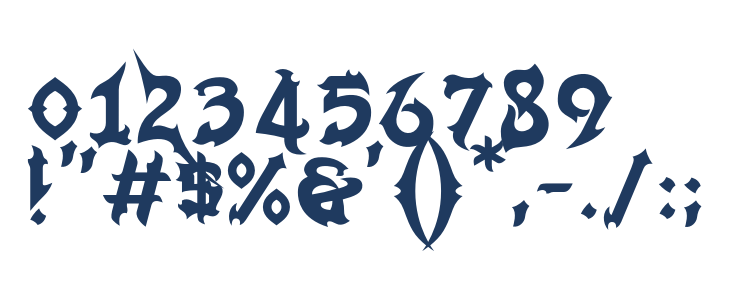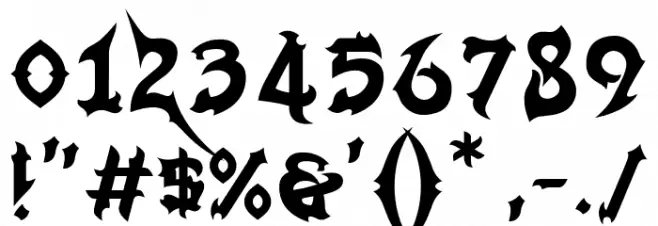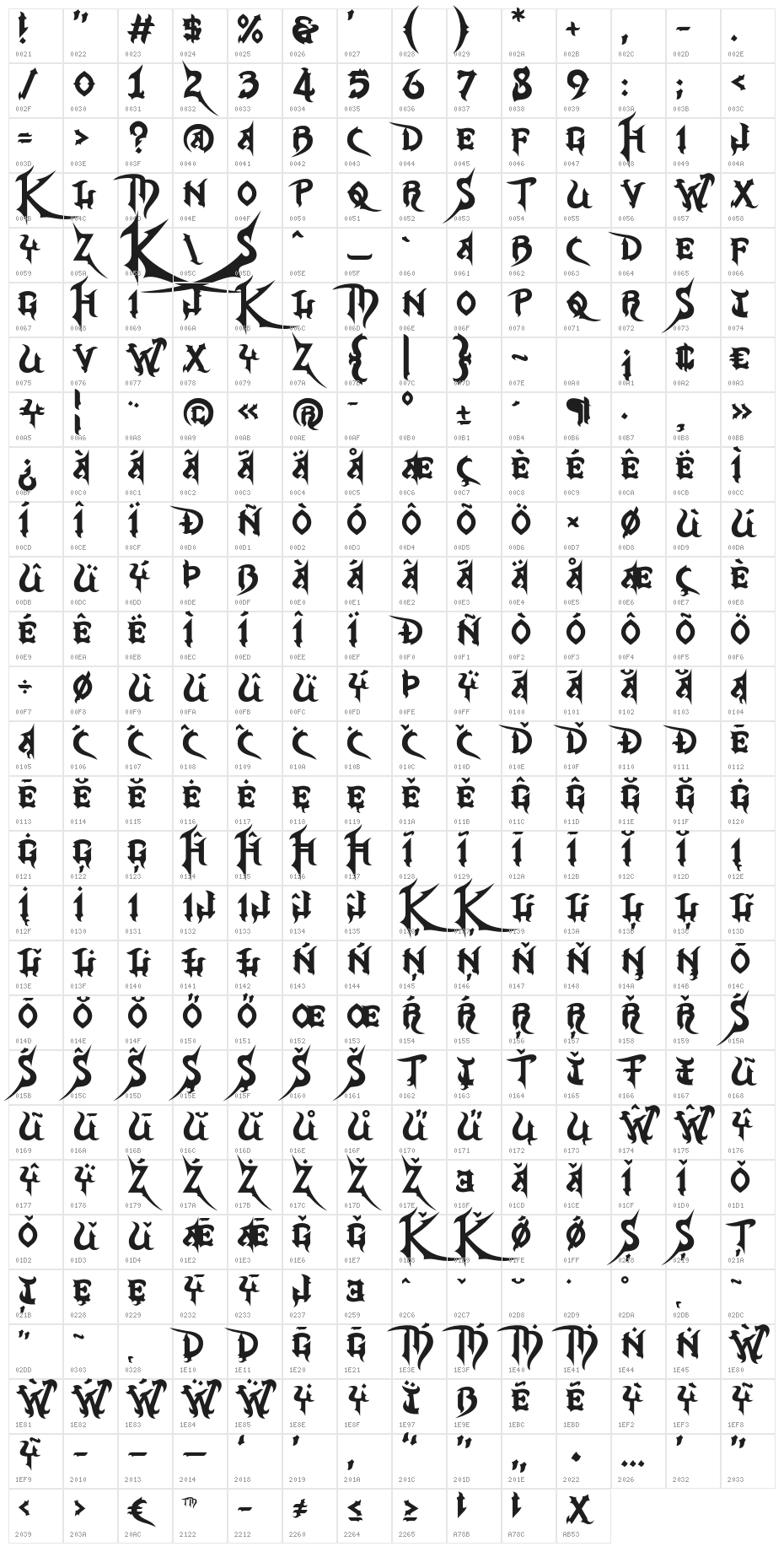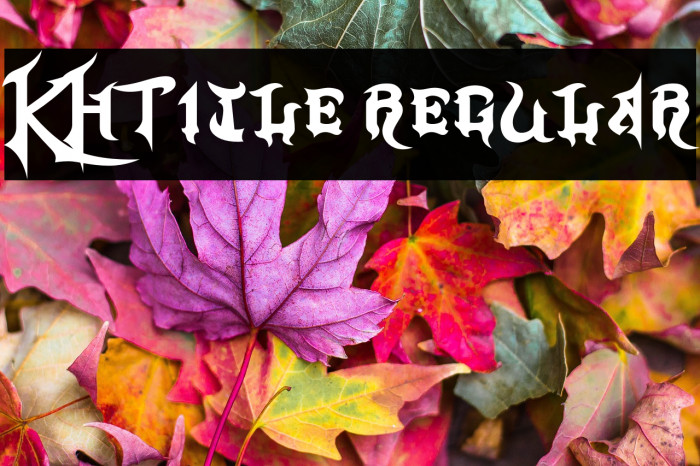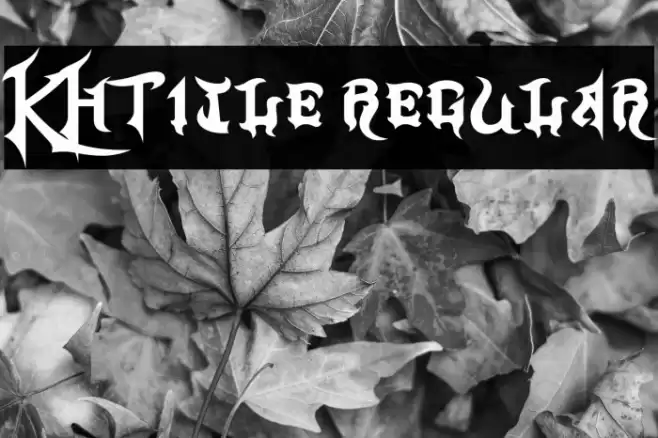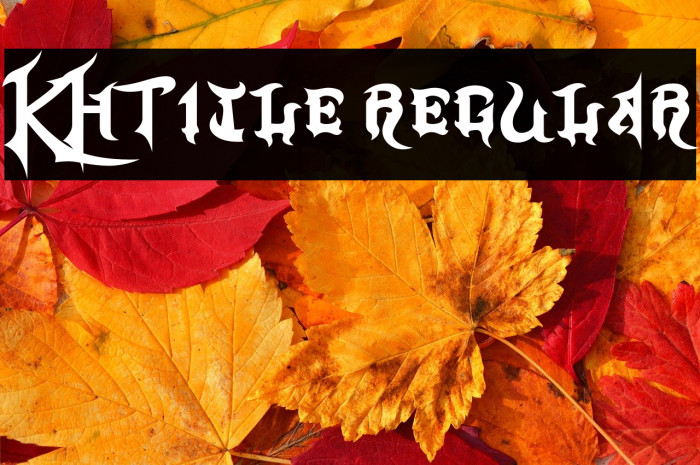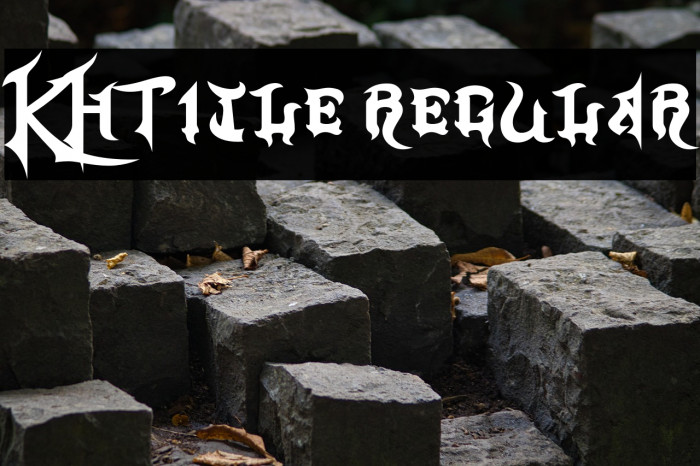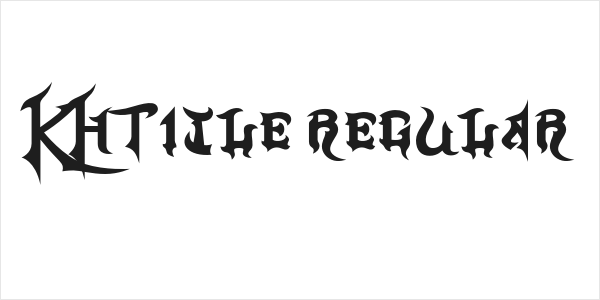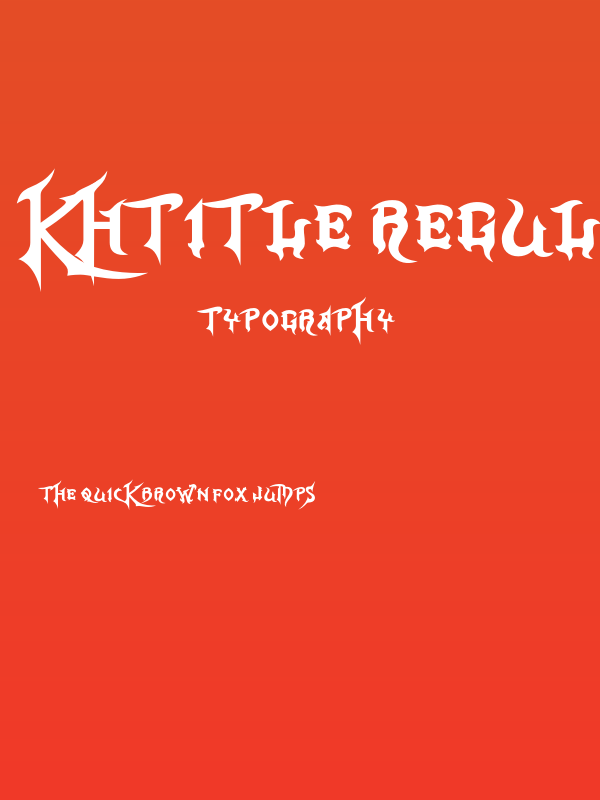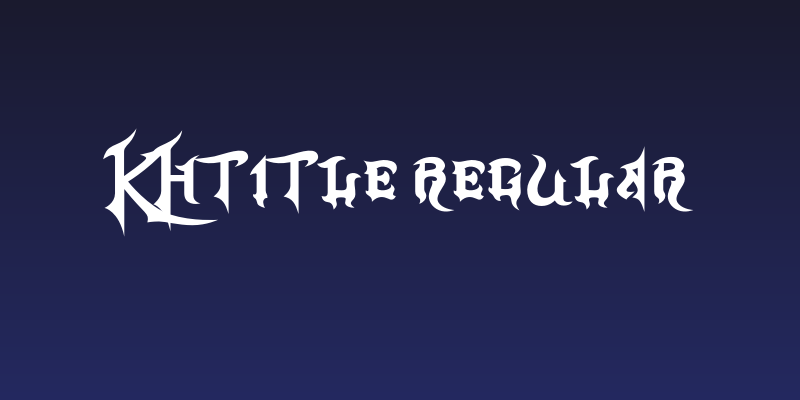
KHTitle Regular Font
KHTitle Regular Description
This font features a bold and dramatic style with sharp, angular edges and a gothic influence. The characters are highly stylized, with intricate details that give them a unique and edgy appearance. The uppercase and lowercase letters maintain a consistent design, with a strong emphasis on vertical strokes and pointed serifs. Numbers and special characters follow the same aesthetic, ensuring a cohesive look across all glyphs. The font's distinctiveness makes it ideal for projects that require a striking and memorable visual impact.
| Overall Style | Gothic, Decorative |
| Proposed Projects | Ideal for album covers, posters, logos, and any design requiring a bold, gothic aesthetic. |